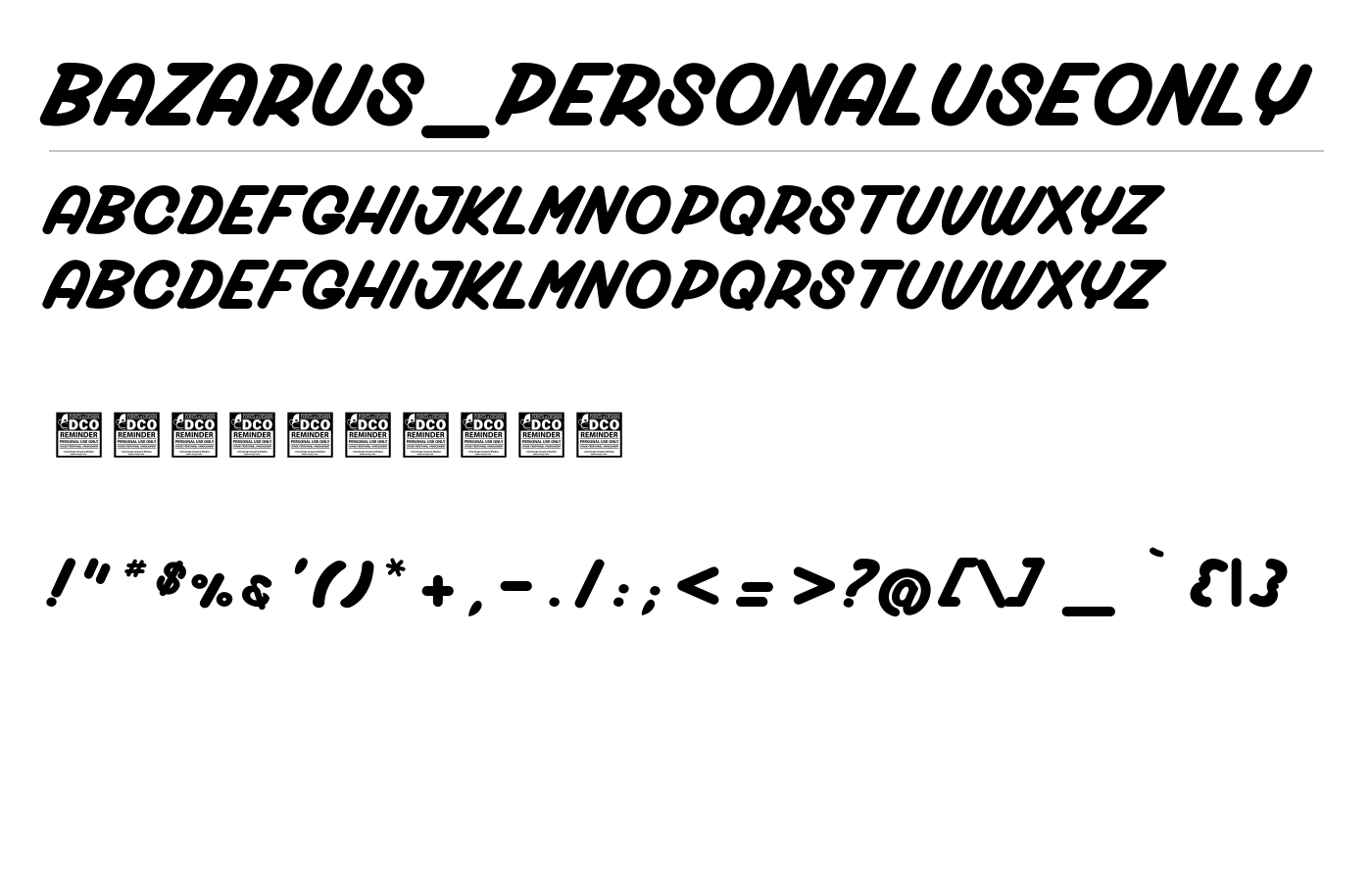
Bazarus_PersonalUseOnly is a bold, rounded script-inspired sans serif font with a playful and friendly character. Its slightly condensed letterforms and moderate x-height give it a dynamic and casual feel, making it ideal for branding, signage, and creative headlines that want to convey approachability and energy. This font works well in informal, fun contexts where a strong, distinctive personality is desired.
Bazarus_PersonalUseOnly Font
About Bazarus_PersonalUseOnly Font